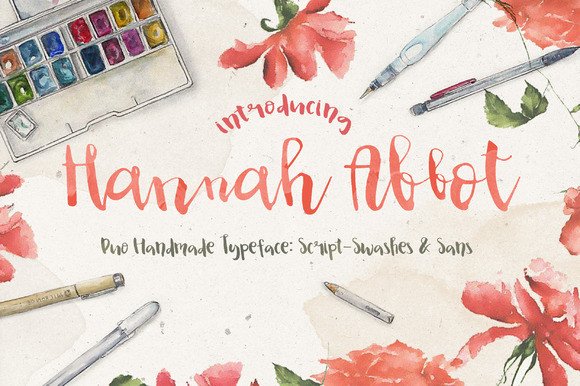
Step into the world of elegance and charm with Hannah Abbot Font, a captivating duo typeface that will elevate your designs to new heights.
Hannah Abbot Script, with its graceful curves and sweeping swashes, will add a touch of femininity and romance to your projects. Whether you're crafting wedding invitations, birthday cards, or enchanting posters, this font will make your words dance off the page.
Complementing the script is Hannah Abbot Sans, a clean and modern font that provides a touch of sophistication and stability. Use it for return addresses, stamps, logos, and branding work, and watch your designs come to life with a touch of timeless elegance.
Hannah Abbot Font is meticulously crafted with a hand lettering brush style, giving it a personal and authentic feel. Its versatility shines through in a wide range of design projects, from wedding invites and birthday cards to greetings and posters.
Immerse yourself in the world of Hannah Abbot Font and unlock the endless possibilities of creative expression. Let your imagination soar as you design projects that exude charm, grace, and sophistication.